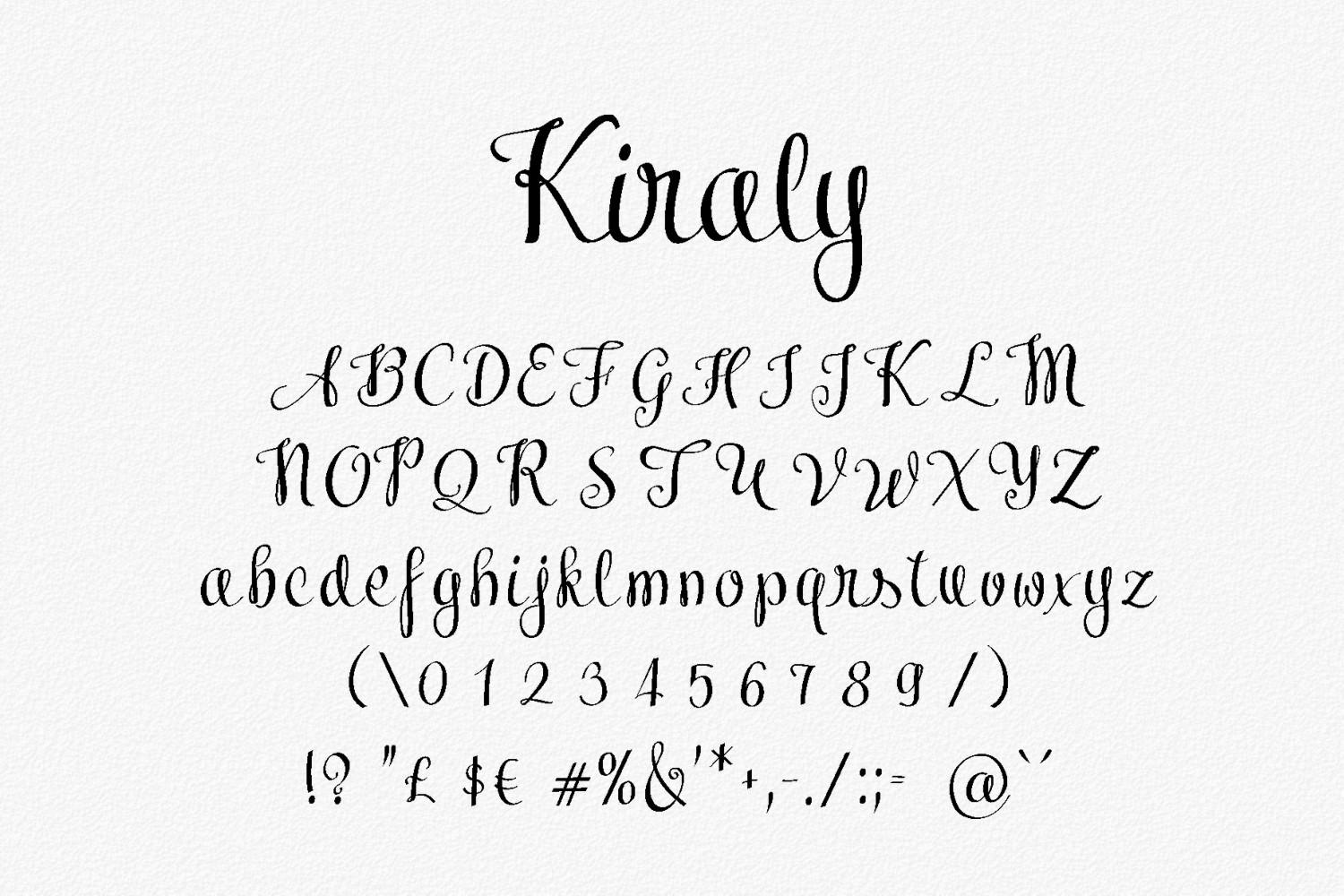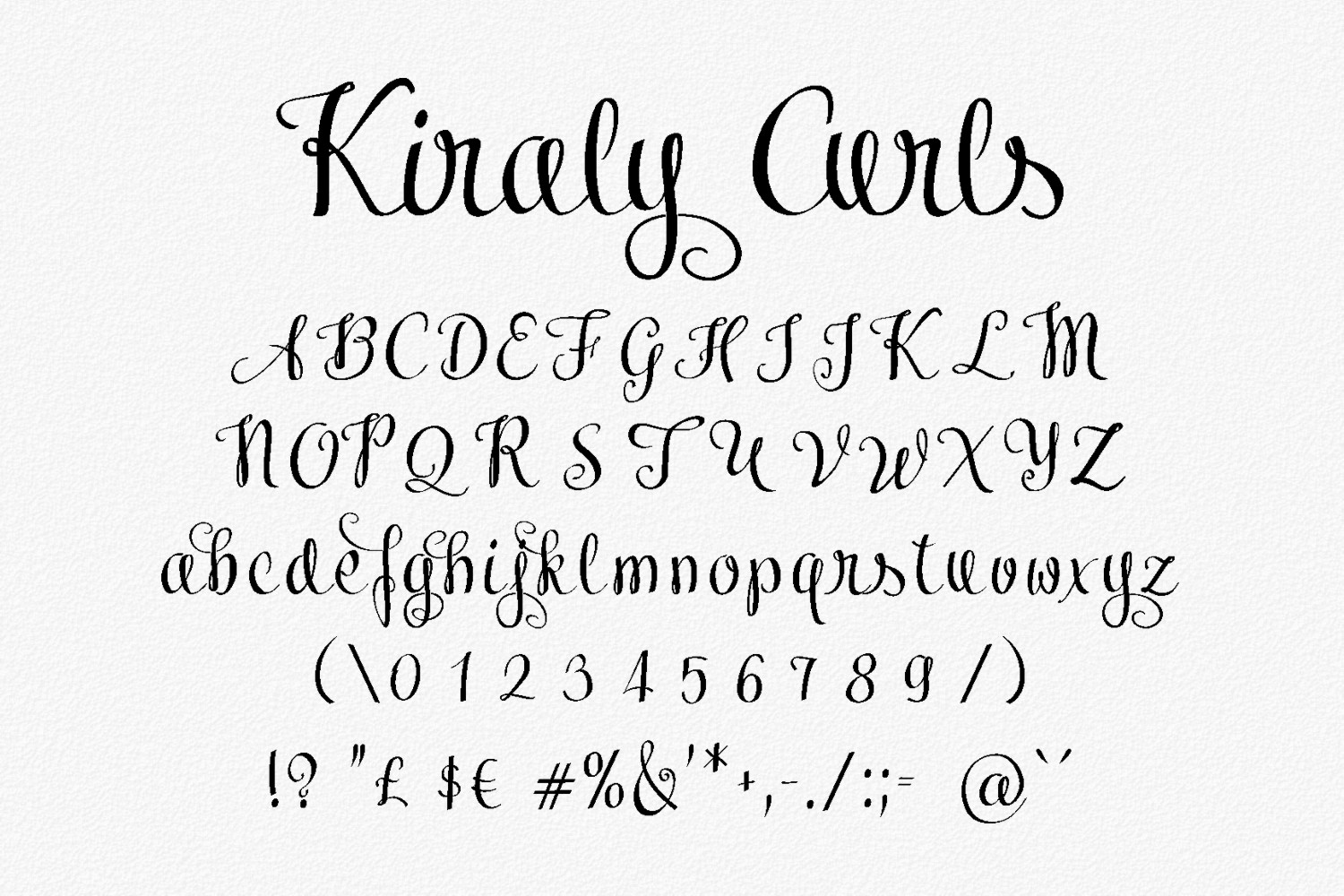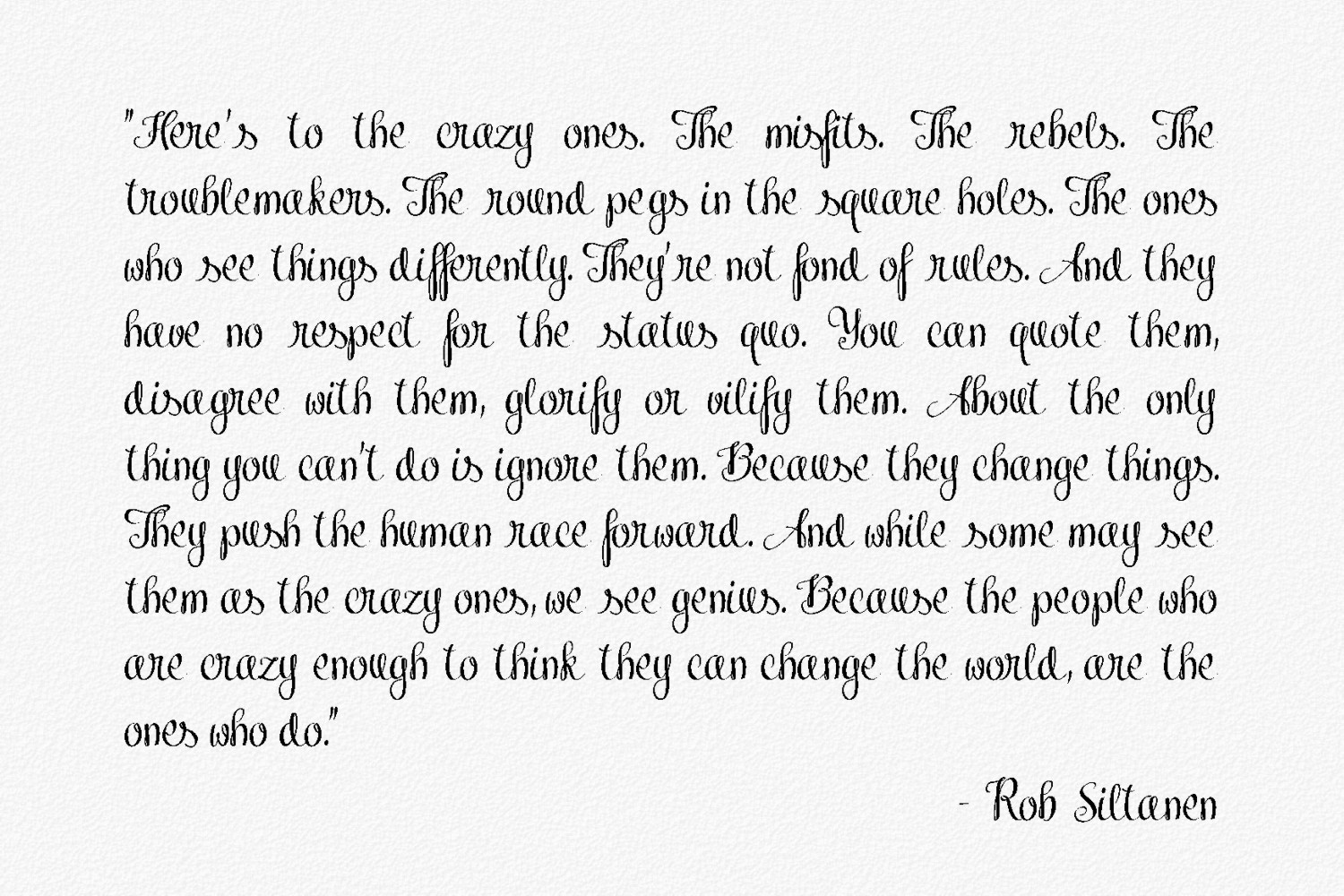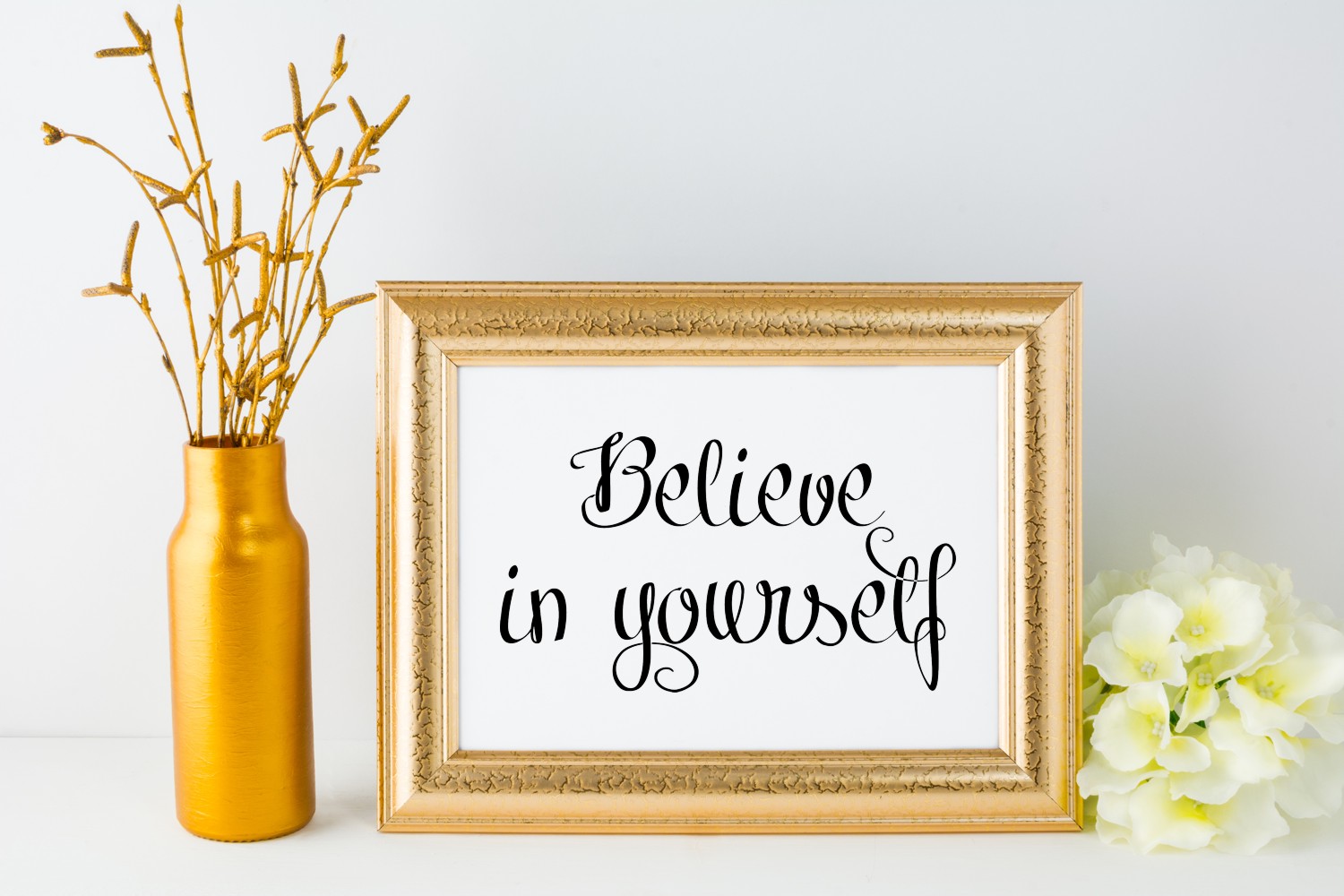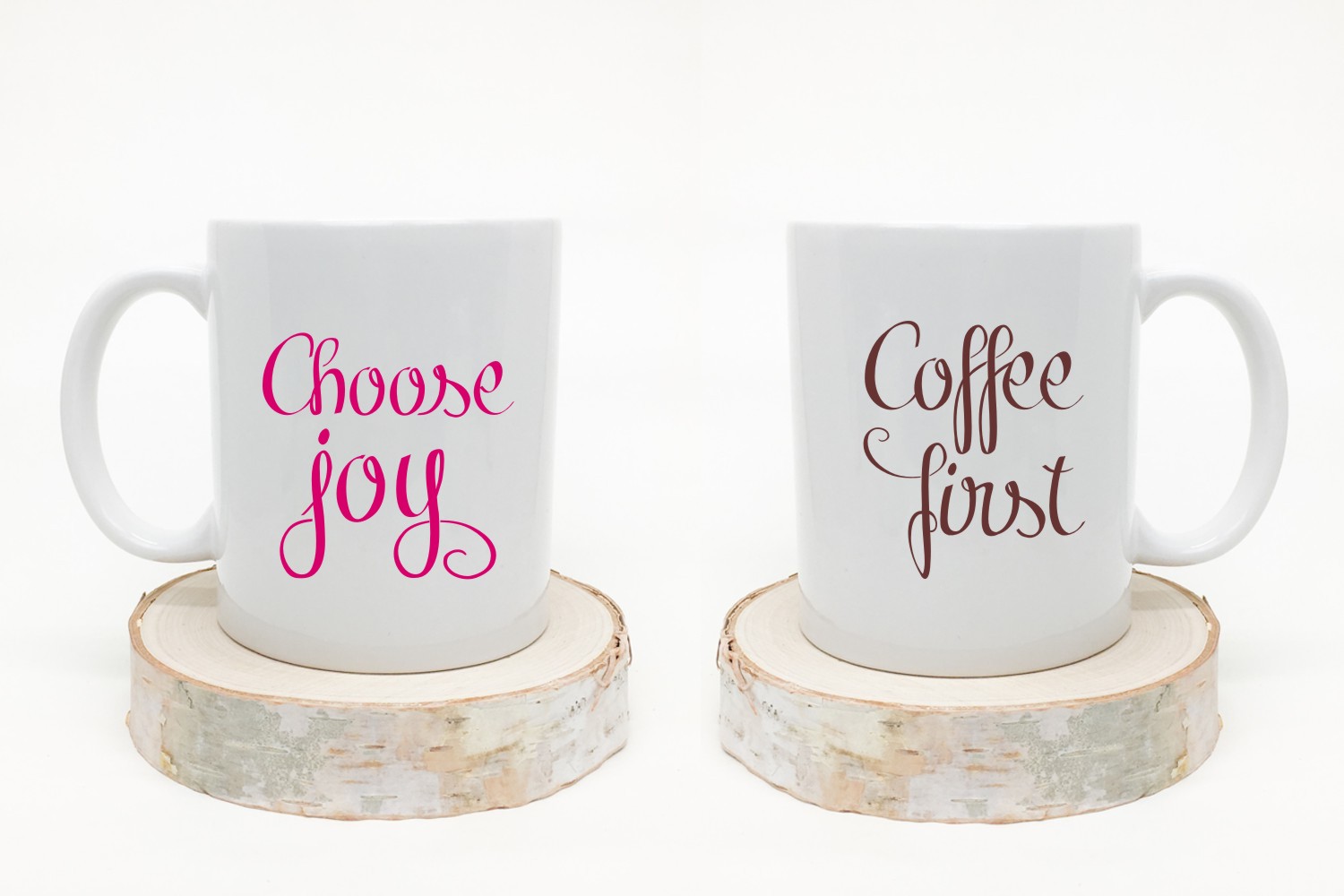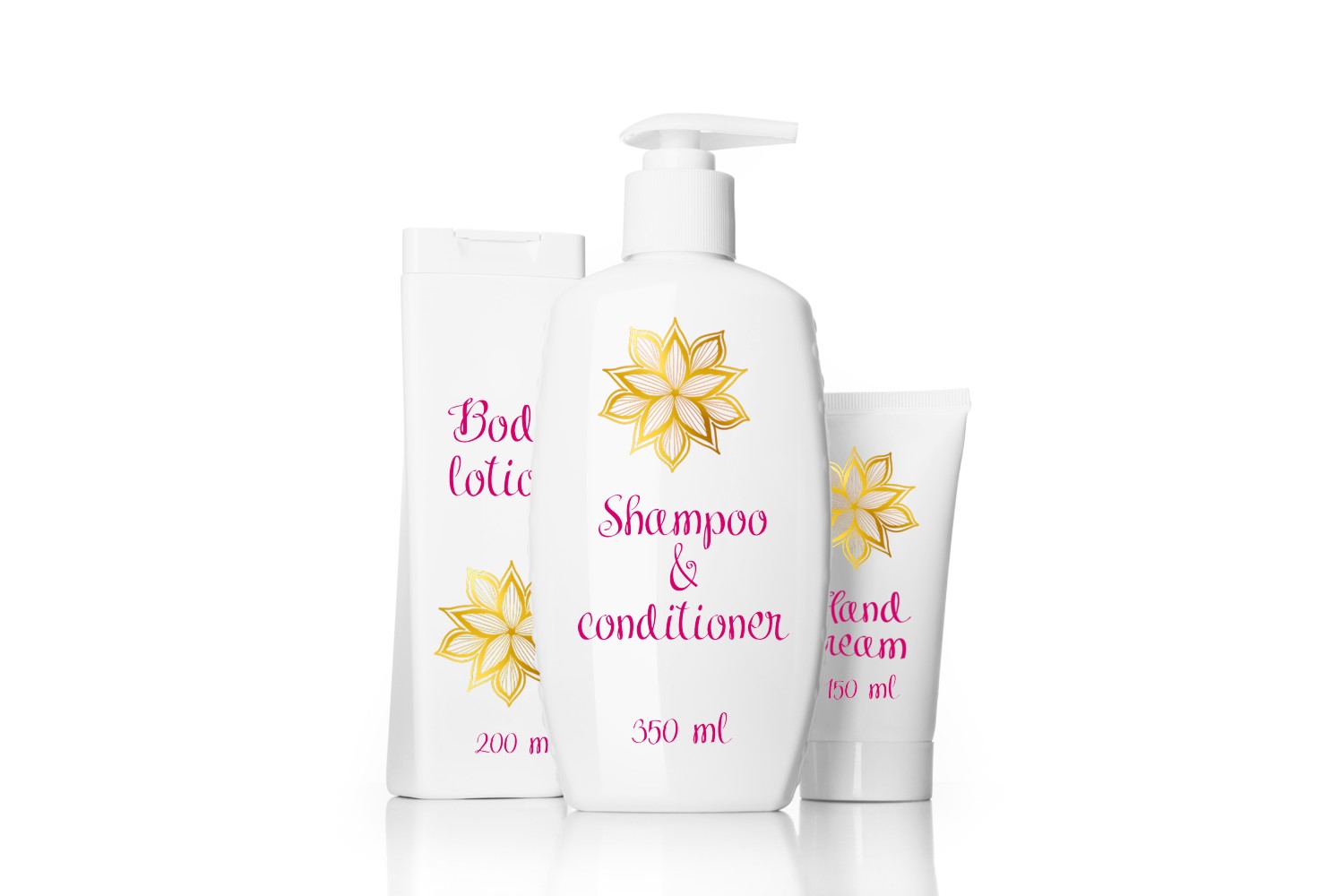
Introduction to Kiraly Font
Have you ever been working on a creative project and suddenly, the perfect font pops up in your design software, transforming the entire look and feel of your work? That’s exactly what happened to many designers when they stumbled upon the enchanting Kiraly Font. This beautiful, high-quality font has become a go-to design resource for creatives looking to add a touch of romance and femininity to their work.
As a designer, you know the value of having a versatile font that can elevate your designs and convey your message effectively. Kiraly Font is more than just a pretty face – it’s a powerful tool that can help you create stunning visual identities, from wedding invitations to fashion branding. With its two gorgeous styles, Regular and Curls, Kiraly Font offers a maximized potential in design and style.
Key Features of Kiraly Font
- Includes 5 unique font styles with varying weights and styles
- Perfect for graphic designers, artists, and anyone looking for a unique font
Honest Review: Kiraly Font
I recently came across the Kiraly Font and I must say it’s a fantastic addition to my design resource library. The font is elegant, modern, and perfect for any creative project that requires a sophisticated look.
- ✨ High-quality design: The Kiraly Font is a masterclass in typography, with precise lines, smooth curves, and a professional finish.
- ✨ Versatility: Whether you’re working on a corporate project, a fashion design, or a wedding invitation, Kiraly Font is adaptable and can be used in various contexts.
- ⚠️ Limited language support: Unfortunately, Kiraly Font only supports a limited number of languages, which might be a drawback for designers who work on projects that require multilingual support.
Overall, I’m thoroughly impressed with the Kiraly Font. Its high quality, versatility, and free availability make it an excellent addition to any designer’s toolkit. While it may have some limitations, it’s a fantastic resource that can elevate any creative project.
Tips for Getting the Most Out of Kiraly Font
The Kiraly Font is suitable for a wide range of creative projects, including logos, brochures, business cards, and social media graphics. Its transparent background makes it easy to layer over other design elements, making it a versatile design resource for any project.
Alternatives to Kiraly Font
The Great Vibes Font is a high-quality, elegant script font that is perfect for creative projects requiring a touch of sophistication. Its beautiful curves and fluid lines make it ideal for use on a transparent background, allowing your design to shine. Great Vibes is a great alternative to Kiraly Font for designers looking to add a sense of luxury to their design resource.
Comparison to Kiraly Font: Great Vibes has a more refined and polished look compared to Kiraly Font, making it suitable for high-end design projects.
Pacifico is a beautiful, modern script font that is perfect for creative projects requiring a touch of elegance. Its beautiful lines and curves make it ideal for use on a transparent background, allowing your design to shine. Pacifico is a great alternative to Kiraly Font for designers looking to add a sense of sophistication to their design resource.